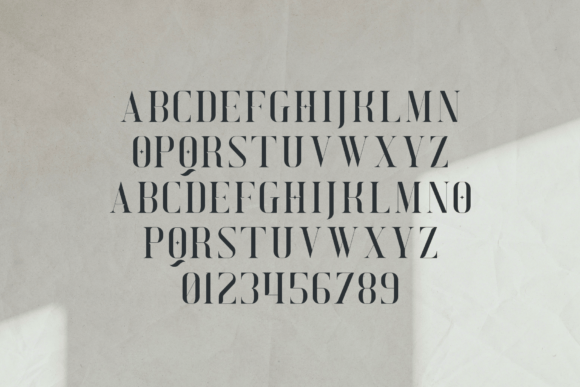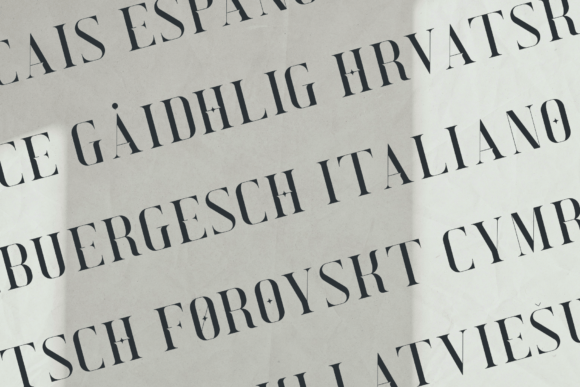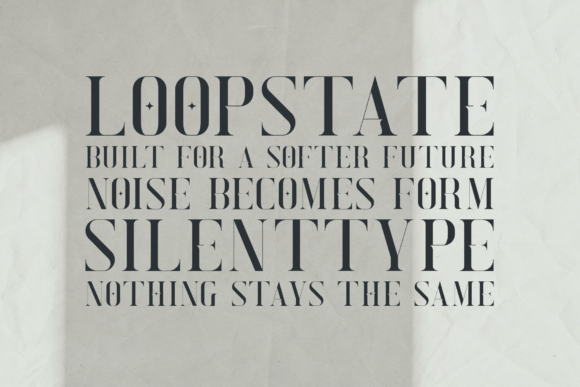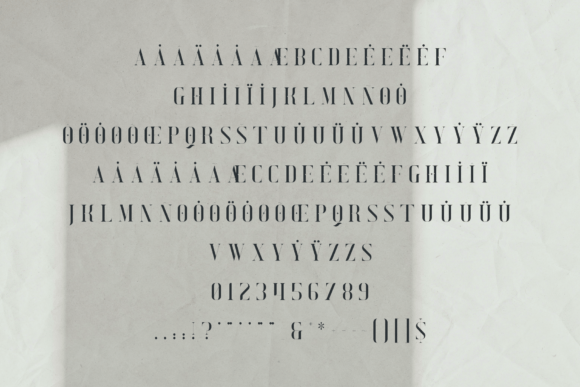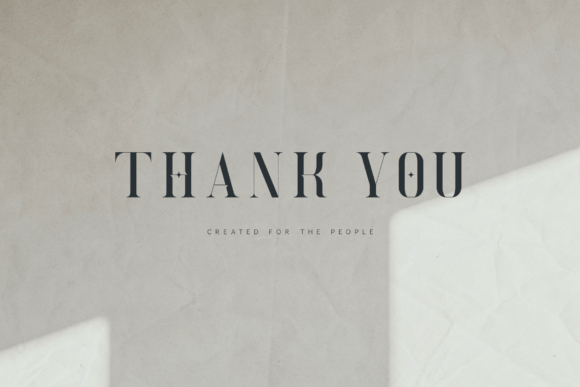
Where Elegance Meets Clarity
Have you ever been stuck trying to convey the essence of your brand or creative project, only to find that the right words aren’t enough? The perfect typography can elevate your message and leave a lasting impression on your audience. For designers seeking to add a touch of sophistication to their work, the Exquisite Font is a game-changer.
This refined serif font is designed to bring elegance, clarity, and timeless sophistication to modern typography. With its classic proportions and subtle contemporary details, Exquisite Font is perfect for luxury and minimalist projects alike. Whether you’re crafting editorial headlines, fashion branding, or elegant visual identities, this versatile font is sure to impress.
- Font Family: Exquisite Font comes in two font families, Regular and Bold, each with 96 glyphs.
- Unique Characteristics: Exquisite Font features a unique blend of modern and vintage elements, with intricate details and subtle texture, making it perfect for creative projects and designs.
Designer Review: Exquisite Font
Overall, I have mixed feelings about the Exquisite Font. While it has some great qualities, there are also some limitations that hold it back from being a truly exceptional font.
- Beautifully crafted letterforms that evoke a sense of luxury and sophistication
- Highly customizable with a wide range of font weights and styles
- Works well in both digital and print applications
- Lack of support for some languages, which can be a major issue for global brands
- Font size and line height can be difficult to adjust, leading to inconsistent typography
- Not as versatile as some other fonts on the market, which can limit its use in different design contexts
While Exquisite Font is a beautiful and well-crafted font, its limitations hold it back from being a top-tier choice for designers. It’s a great option for projects that require a high-end, luxurious feel, but it may not be the best choice for more complex or global design projects.
Tips for Getting the Most Out of Exquisite Font
To get the most out of Exquisite Font, use it for titles, headings, and other text elements where you want to add a touch of elegance. Experiment with different font sizes and styles to achieve the desired effect.
Exquisite Font is perfect for:
- Business cards and letterheads
- Magazine and newspaper headlines
- Book covers and titles